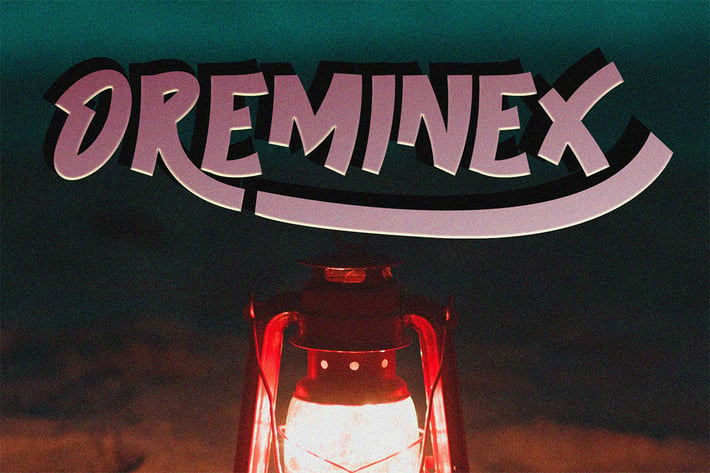
Oreminex - Display Font
Introducing Oreminex, a unique, modern, and simple display font.
So perfect for you who needs a typeface for logo designs, magazine, social media, brochure, and many more.